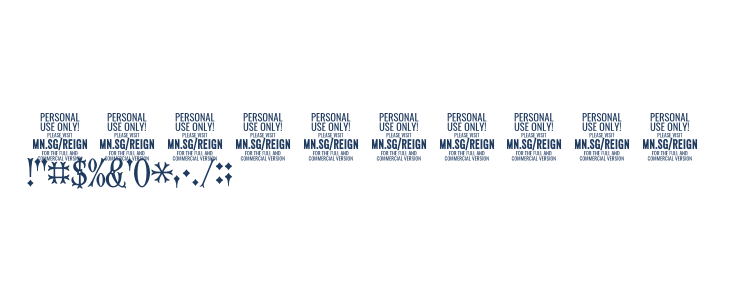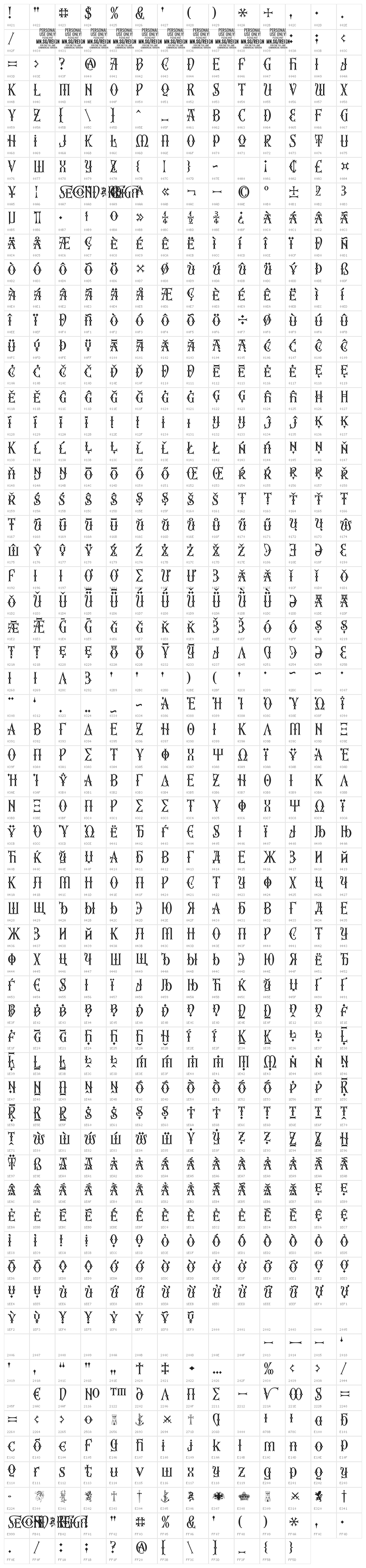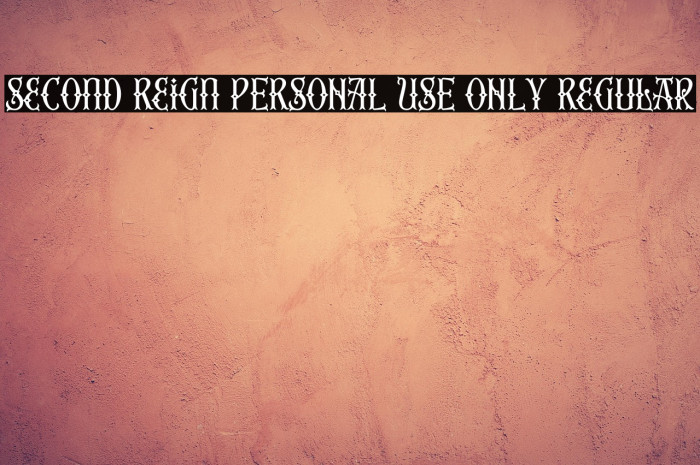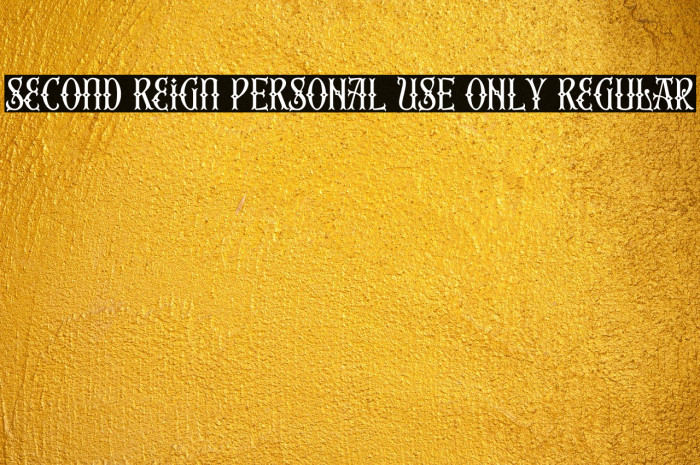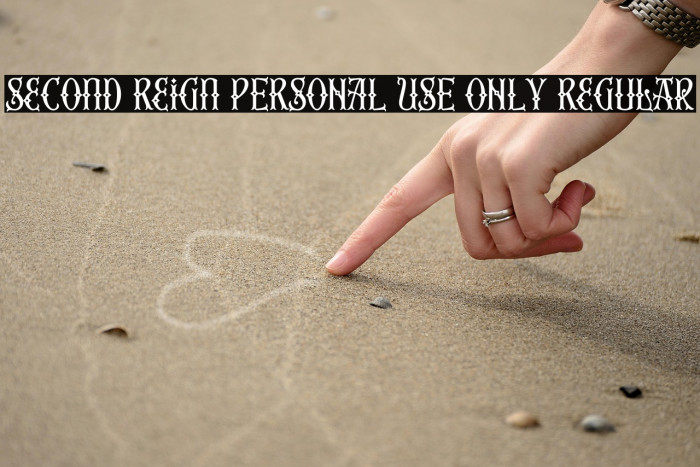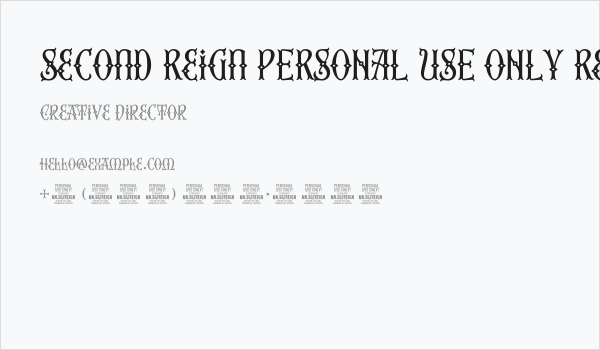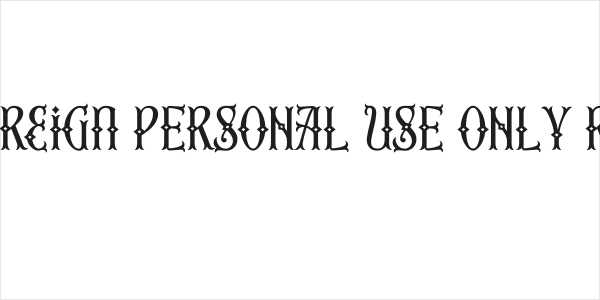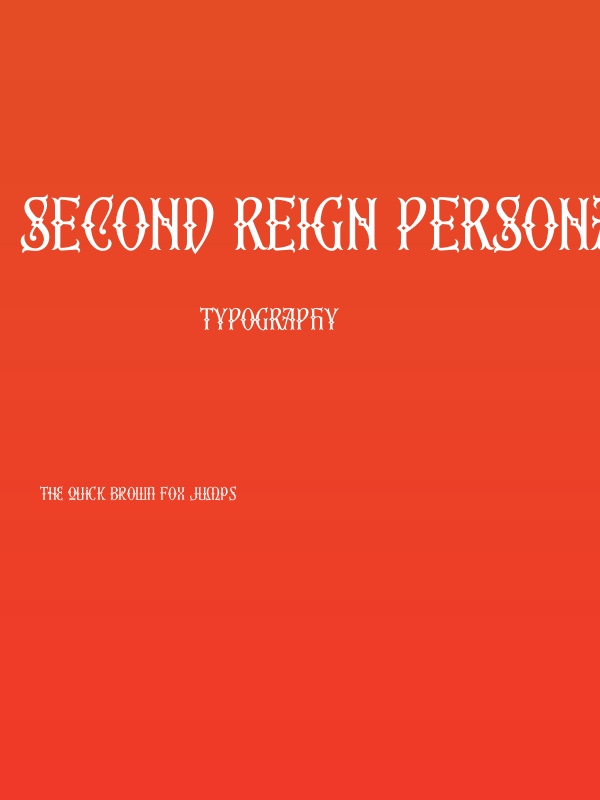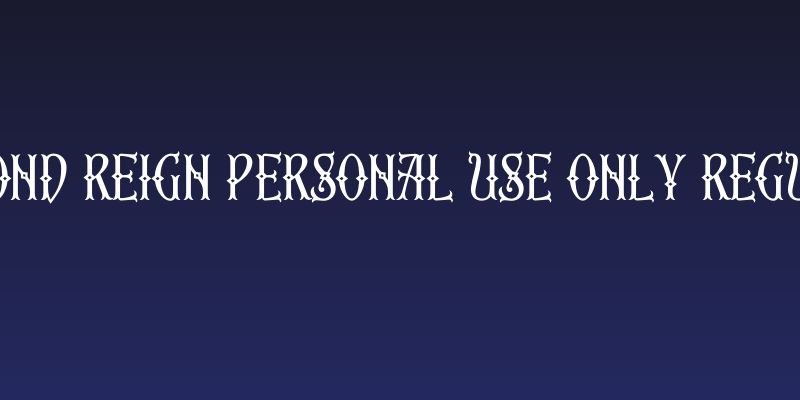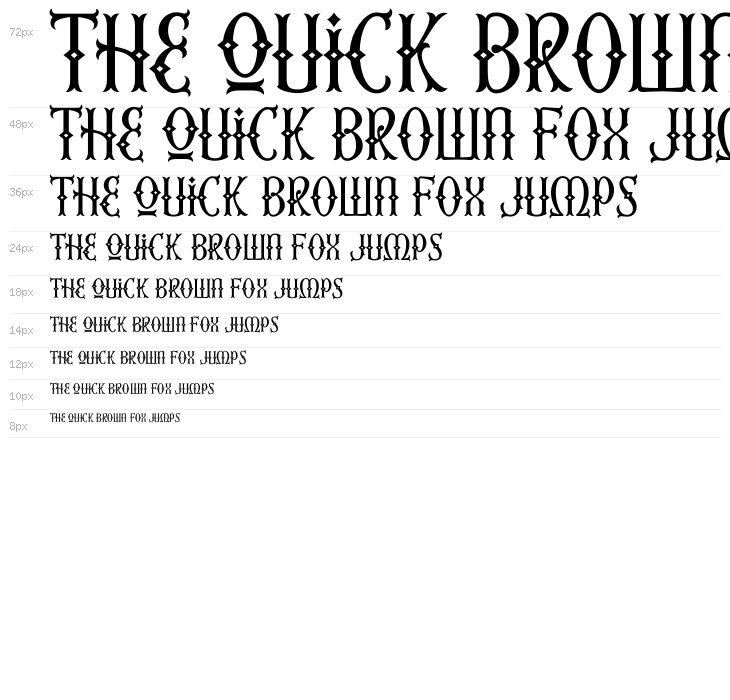
Second Reign PERSONAL USE ONLY Regular Font
Second Reign PERSONAL USE ONLY Regular Description
This font features a striking and ornate design, reminiscent of medieval or gothic styles. The characters are embellished with intricate details, including sharp serifs and decorative elements that give it a regal and commanding presence. The uppercase and lowercase letters maintain a consistent style, with unique flourishes that enhance their visual appeal. The numbers and special characters are equally elaborate, ensuring a cohesive look across all text elements. This font is ideal for projects that require a dramatic and historical aesthetic.
| Proposed Projects | Ideal for historical-themed designs, fantasy book covers, event invitations, and branding that requires a dramatic flair. |